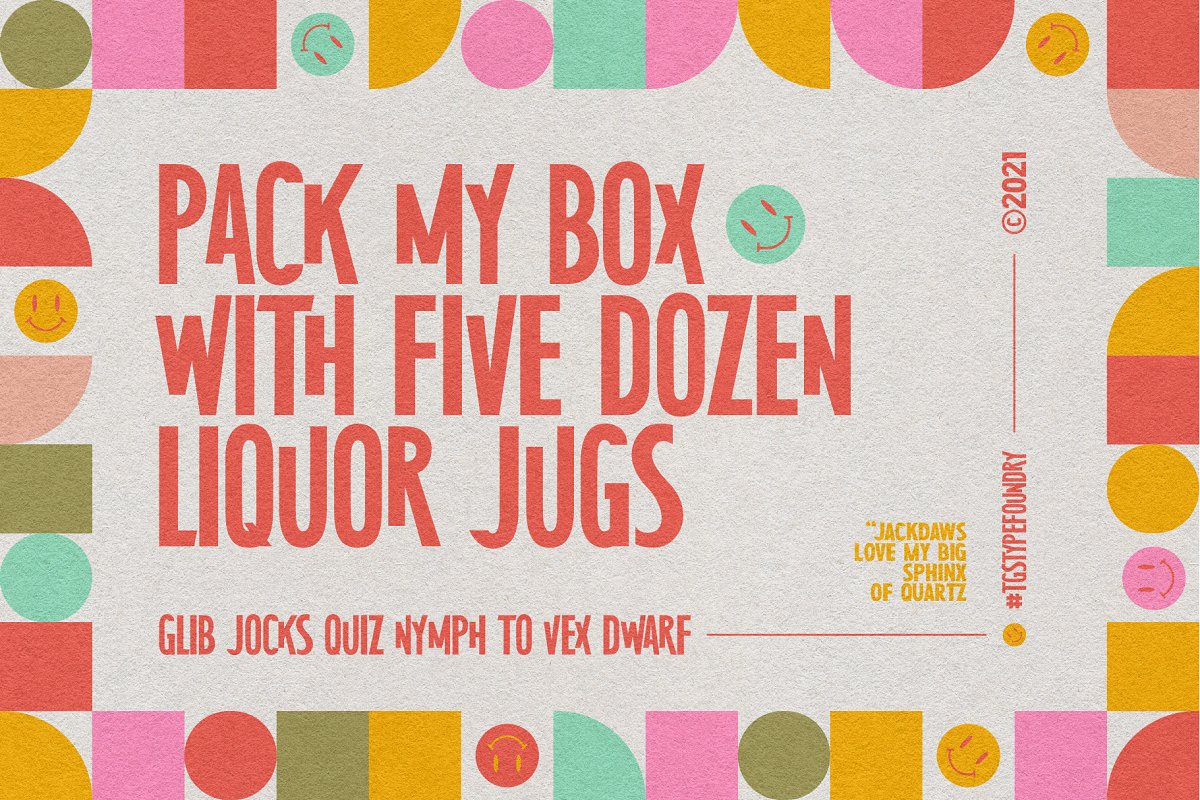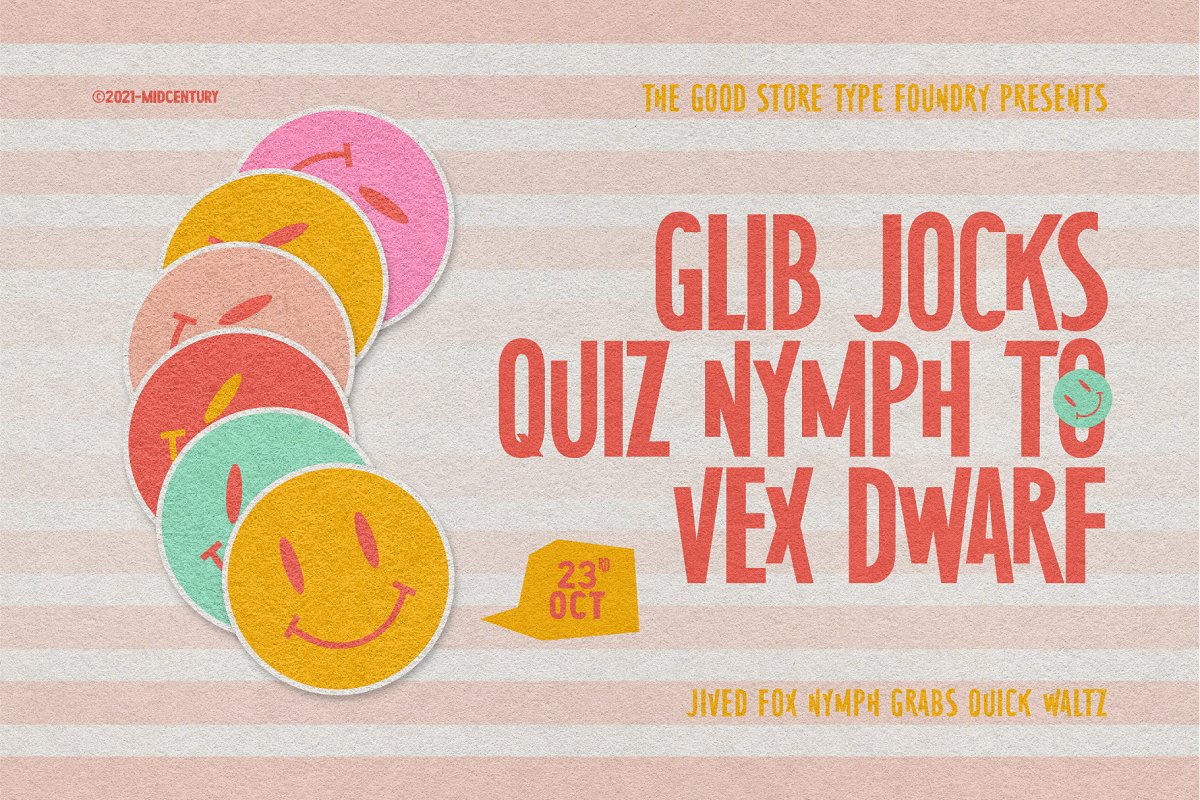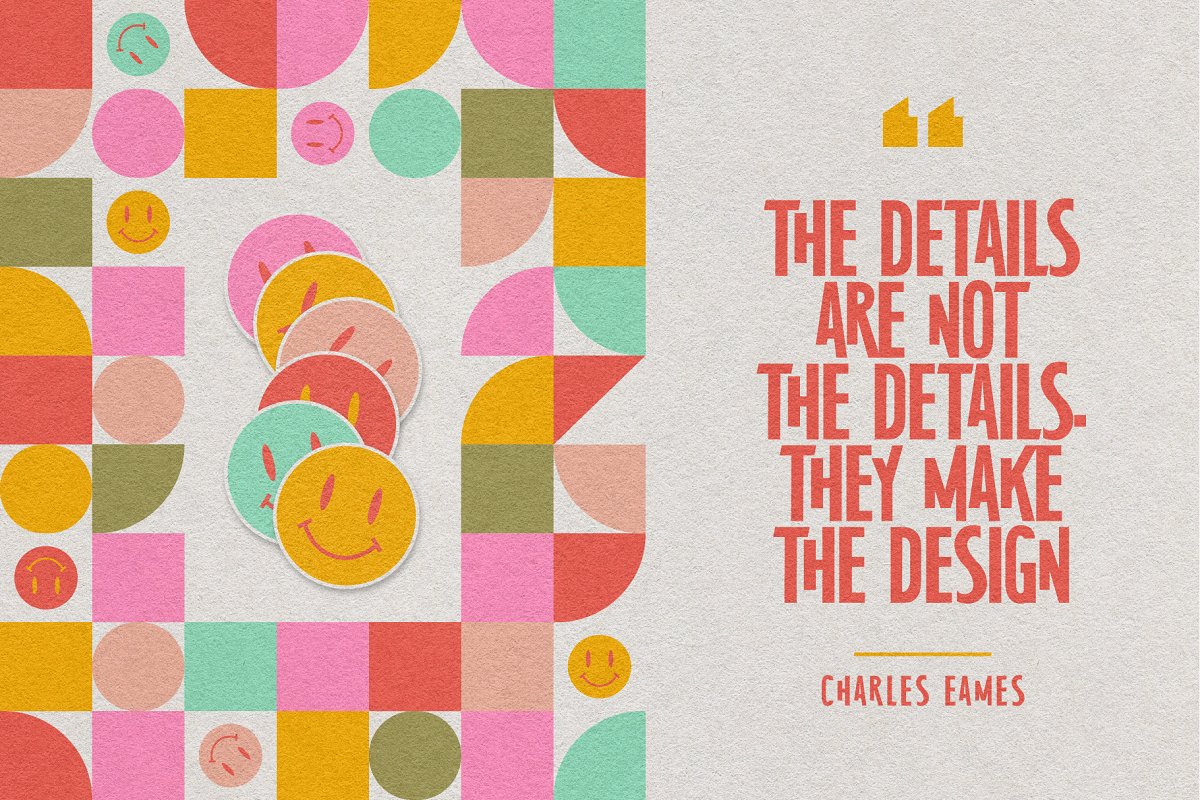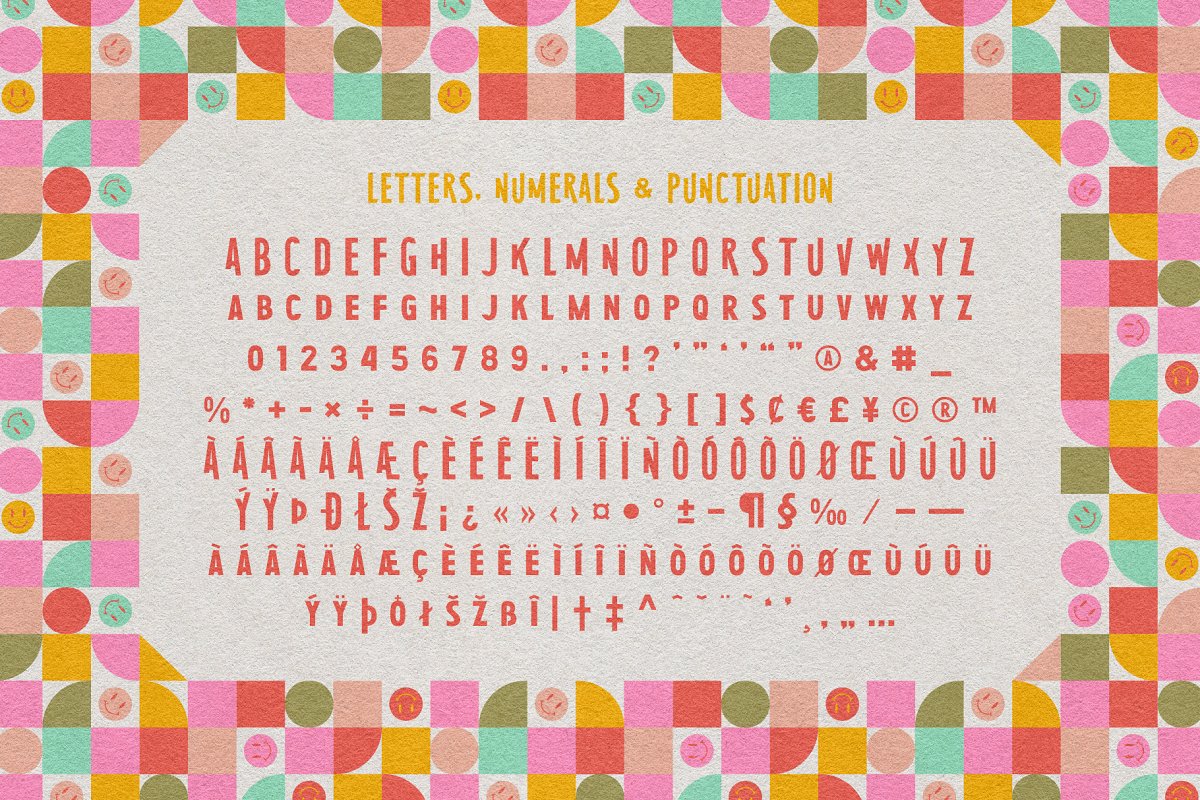
About the MidCentury Typeface Extras Font
MidCentury Typeface is an All-caps Modern Mid-Century Display Typeface that inspired by many graphic designs back in the 1950s, from poster cover, illustration, novel cover, and many more, With the modern-retro looks, it’ll fit various different design needs, THE PACKAGE INCLUDES:TTF (TrueType Font)OTF (OpenType Font)WEBFONT (EOT, WOFF, WOOFF2)1 Flyer Template (Adobe Illustrator CC)1 Instagram Post Template (Adobe Illustrator CC)1 Instagram Story Template (Adobe Illustrator CC)55 Logo/Badge Template (Adobe Illustrator CC)2 Background Pattern (Adobe Illustrator CC)20 Modern Mid-Century Icons (Adobe Illustrator CC)How to use open type feature https://helpx